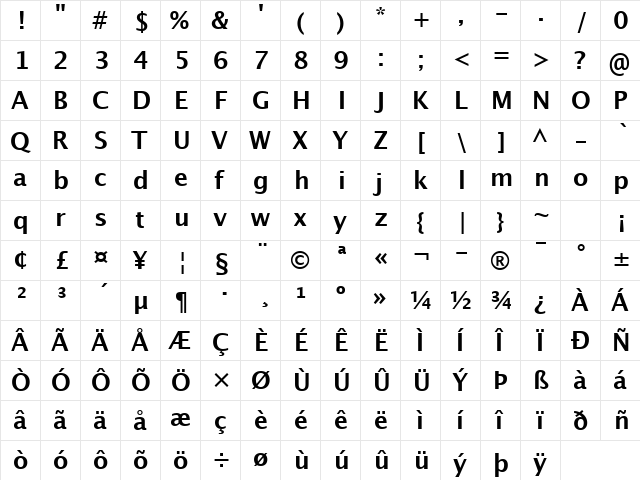
Lucida Grande Bold
| Designer | Kris Holmes and Charles Bigelow |
Design Context for Lucida Grande Typeface
Lucida Grande is a composed and adaptable typeface that performs quietly and consistently across a wide range of design contexts. The heavy weight commands attention and anchors typographic hierarchies.